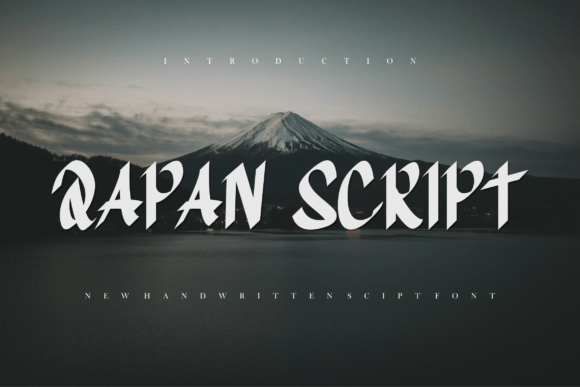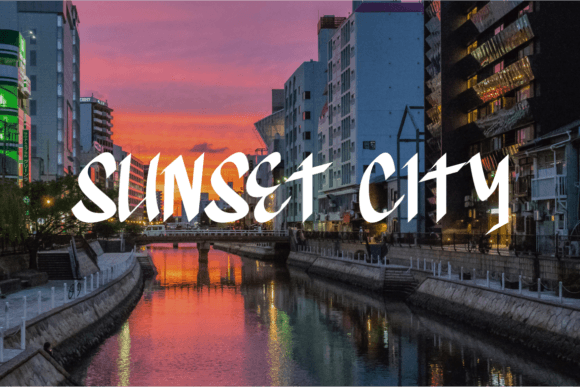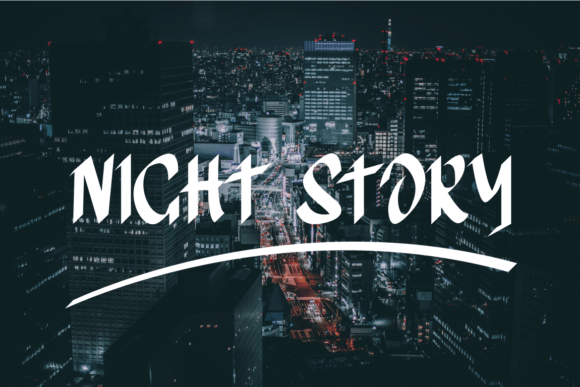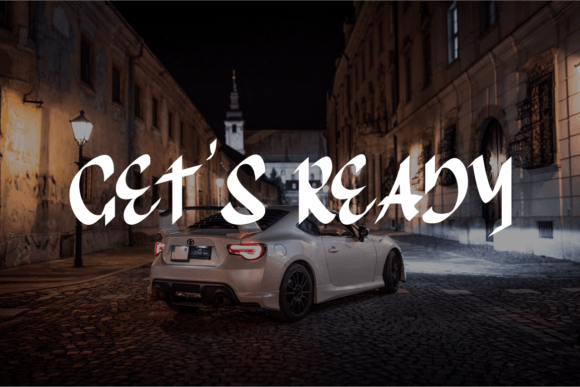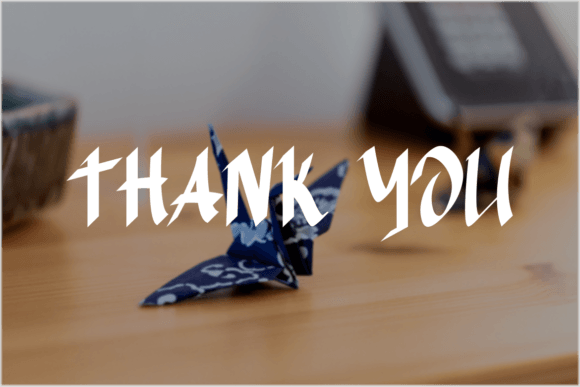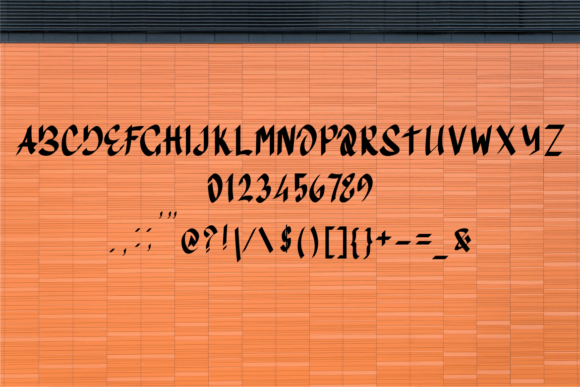
About Qapan Script Font
The Qapan Script Font Download is a bold and stylish handwritten typeface that combines modern charm with expressive character. Designed to capture attention, this font is perfect for creative projects that require both personality and readability. Whether you are working on digital designs, greeting cards, or unique branding elements, Qapan Script offers a versatile solution that adapts to many design needs.
This typeface is bold yet approachable, making it an excellent choice for those who want to add impact without losing elegance. Its natural handwritten flow ensures that your text feels authentic, while its neat structure keeps it legible across both print and digital media.
Features of Qapan Script Font
The Qapan Script Font Download provides a set of practical features for designers and creatives alike:
Bold handwritten script with strong character
Excellent readability for titles and body text
Stylish flow that works across many design formats
Ideal for professional branding and personal projects
Suitable for both large-scale and small-scale designs
Best Uses for Qapan Script Font
The adaptability of this font makes it a great addition to any designer’s toolkit. Here are some popular uses for the Qapan Script Font Download:
Craft projects – Adds a bold and personal touch to handmade work
Digital design – Perfect for social media graphics, websites, and presentations
Greeting cards – Brings warmth and charm to invitations and holiday cards
Logos and branding – Bold enough to make a statement while maintaining elegance
Advertising and posters – Stand out with eye-catching, handwritten typography
Stationery – Stylish for note cards, planners, and professional materials
Why Choose Qapan Script Font
The Qapan Script Font Download stands out because of its ability to blend strength with personality. Many handwritten fonts lean either too casual or too decorative, but Qapan Script achieves the perfect balance. Its bold strokes communicate confidence, while its natural flow makes it approachable and versatile.
Designers who want a typeface that works for both modern branding and personal creative projects will find Qapan Script to be an excellent choice. Its adaptability means you can use it for professional marketing campaigns just as easily as for personal DIY projects.
The Qapan Script Font Download is a bold handwritten typeface that combines style, charm, and usability. With its natural flow and impactful look, this font is perfect for digital design, branding, crafts, and everything in between.